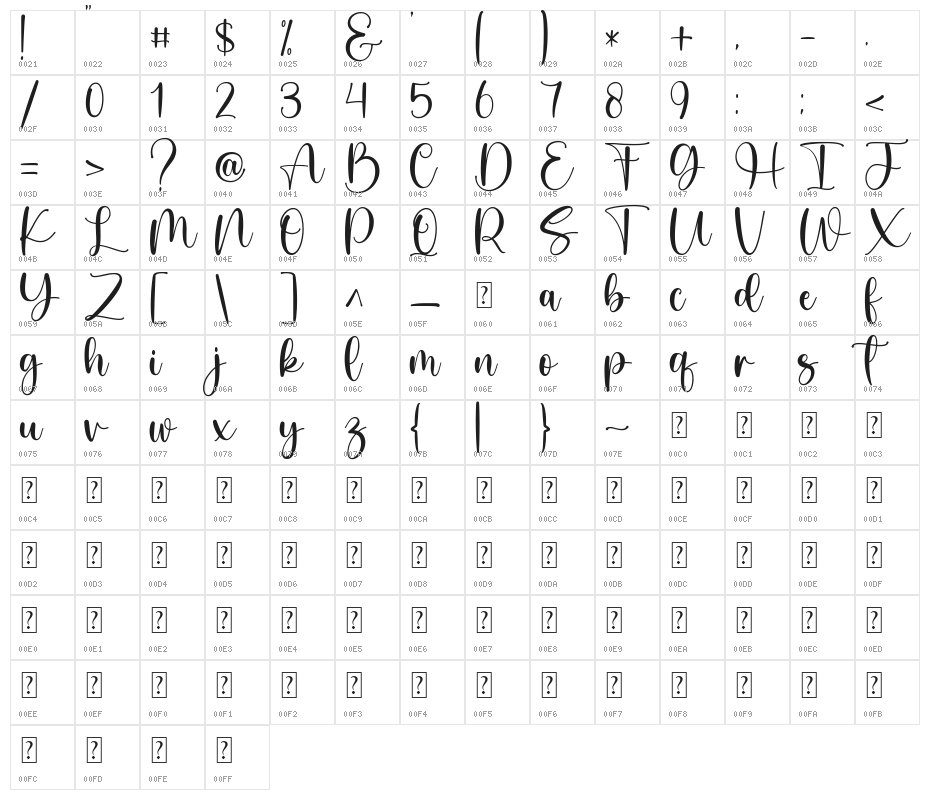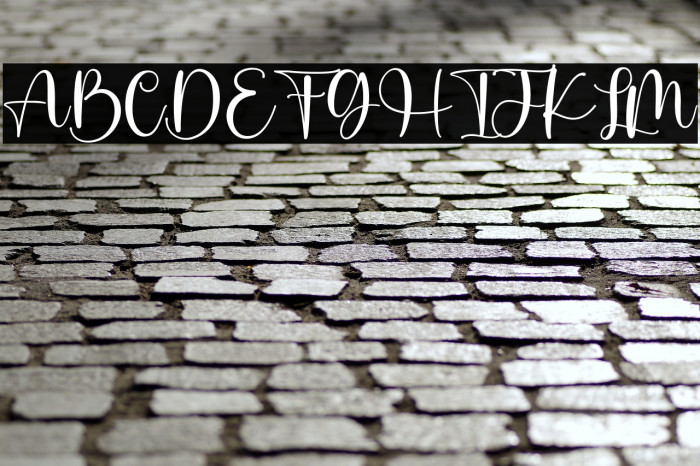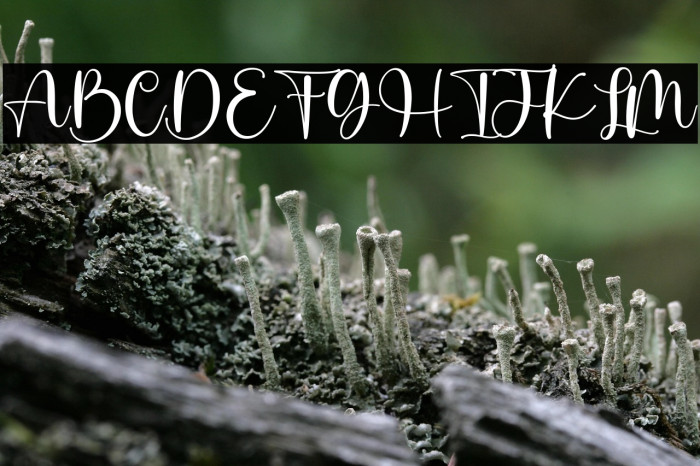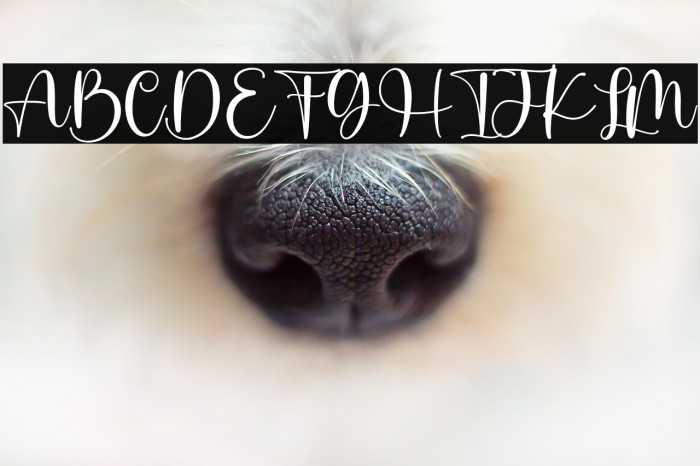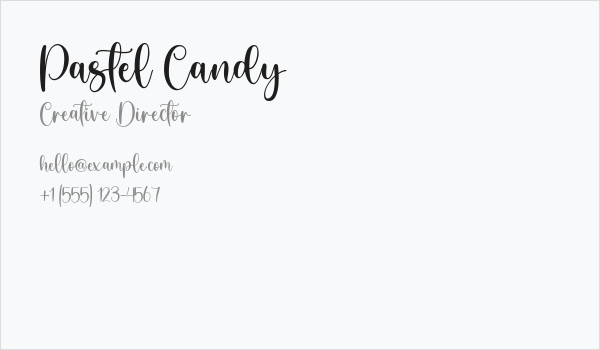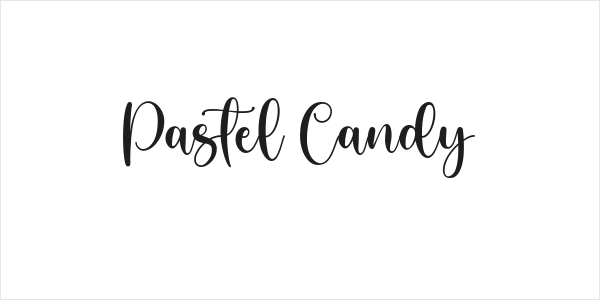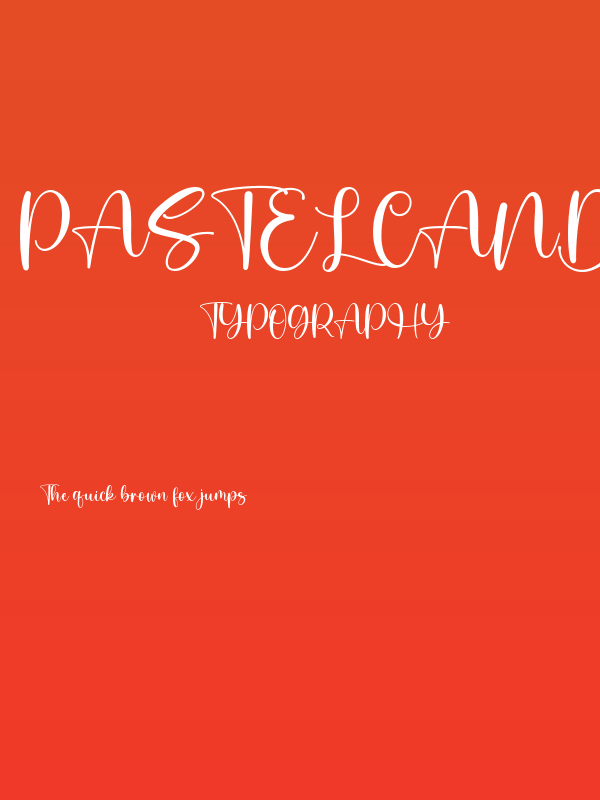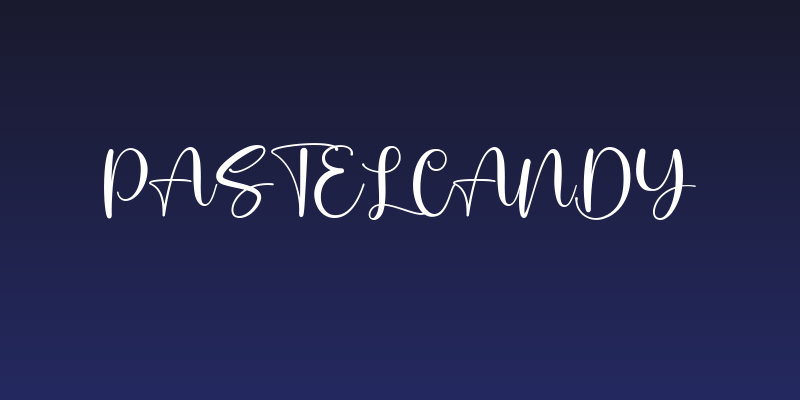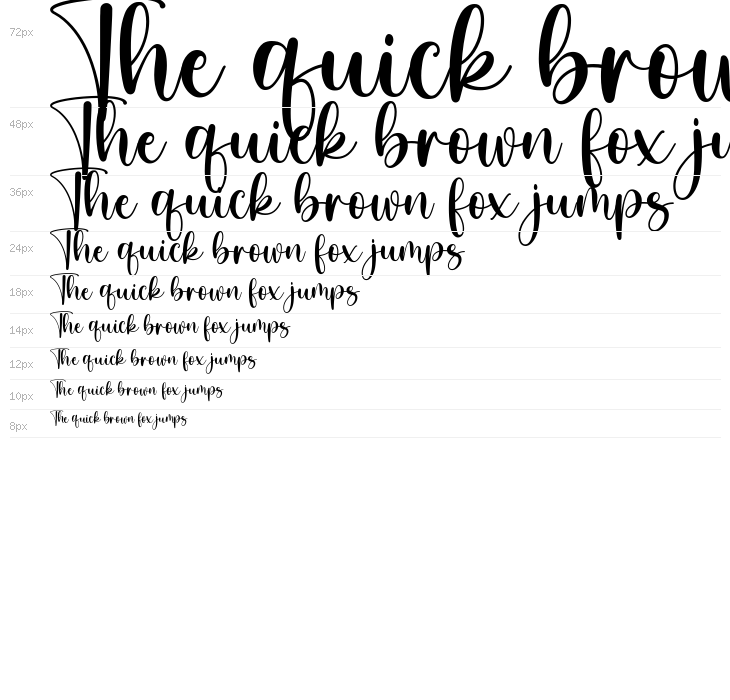
Pastel Candy Font
Pastel Candy Description
This font features a playful and whimsical script style, characterized by its flowing, cursive letters. The uppercase letters are bold and expressive, with elegant loops and swirls that give a sense of movement and creativity. The lowercase letters maintain a consistent style, with a slightly more compact form, yet they still exhibit the same playful curves and loops. The numerals are distinct and easy to read, with a slight slant that complements the overall script style. Special characters are creatively designed, maintaining the font's whimsical nature. This font exudes a sense of fun and creativity, making it ideal for projects that require a personal and artistic touch.
Proposed ProjectsIdeal for greeting cards, invitations, branding, and creative projects that require a personal touch.